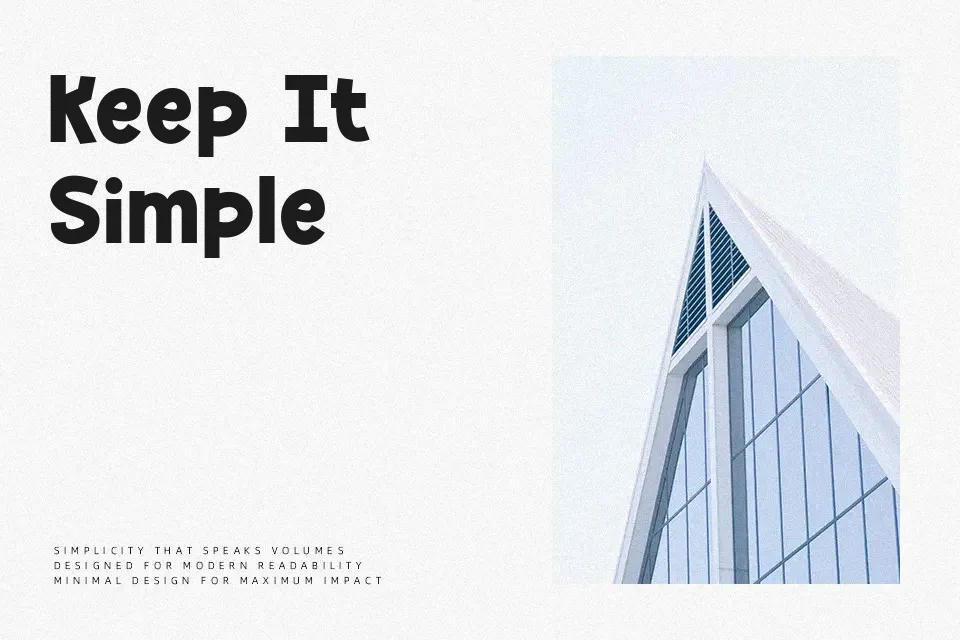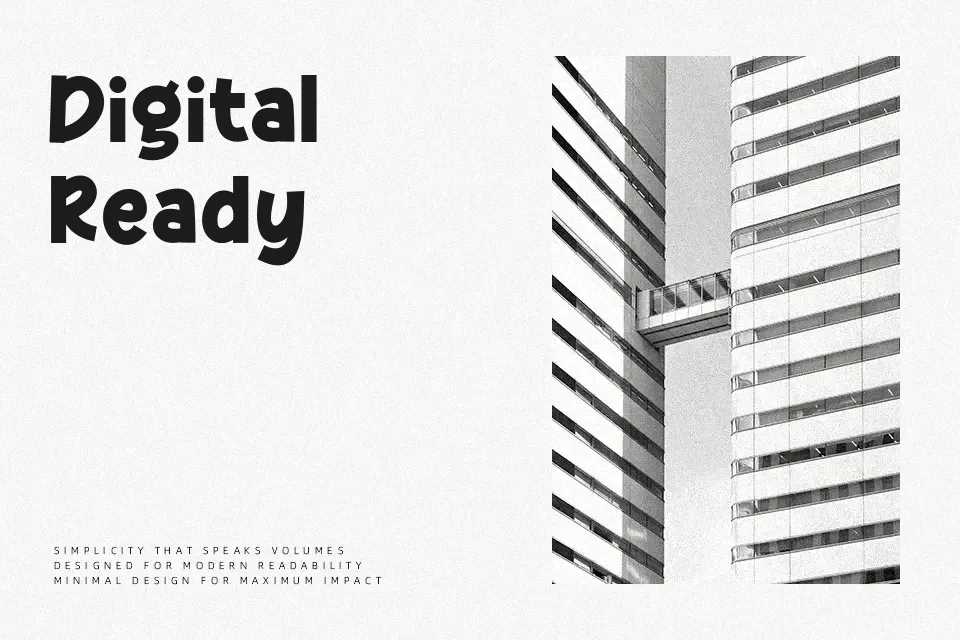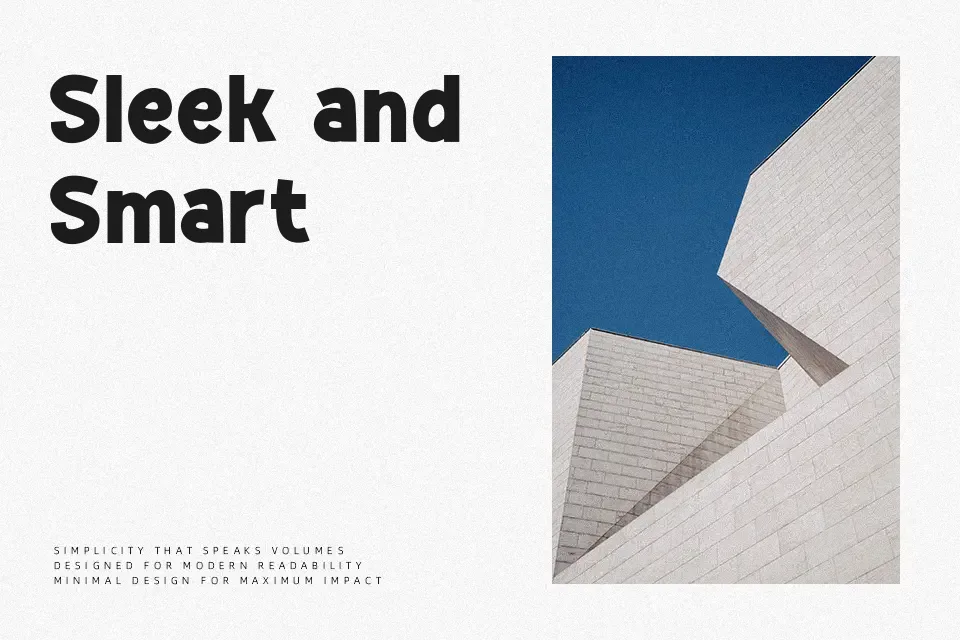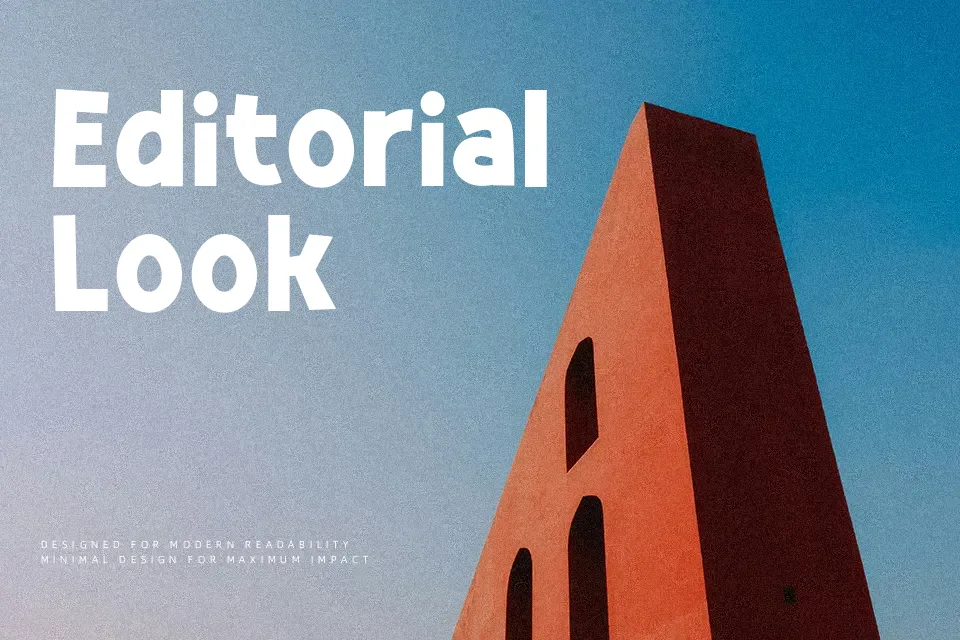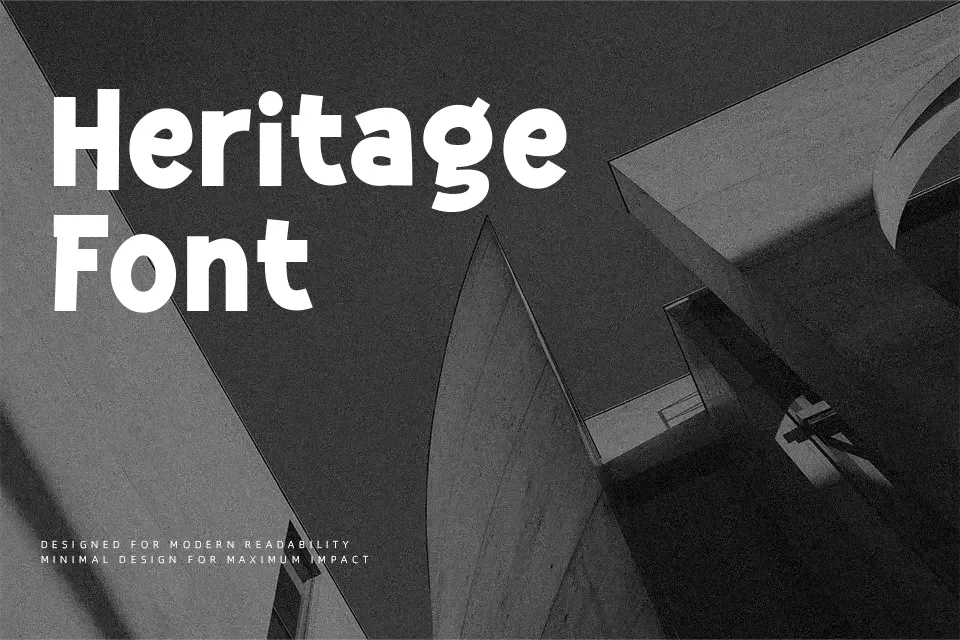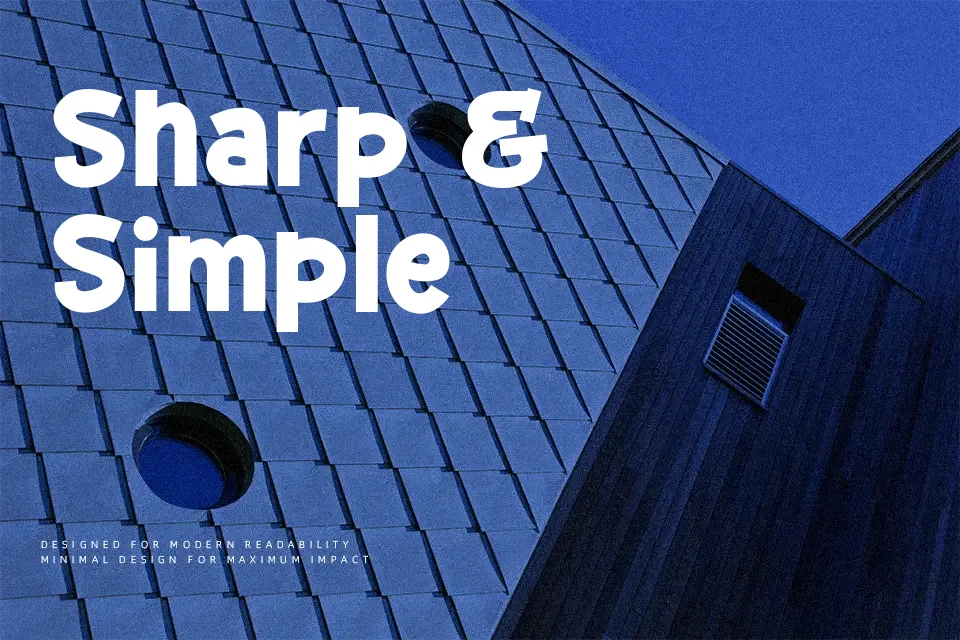
Thocant Font
Designed by Khurasan
Thocant Font delivers a minimalist sans-serif architecture built around unmodulated line weights, open apertures, and refined geometric curvature. Spacing between individual glyphs remains moderately snug, providing rhythmic cohesion when words appear at substantial scale. Because the stroke thickness stays uniform throughout uppercase and lowercase sets, titles achieve an immediate sense of technical clarity. The design excels across technology branding, packaging labels, dynamic video titles, and modern promotional banners. However, the compact spacing and lack of textural contrast reduce reading comfort across prolonged editorial paragraphs. At display sizes, the letterforms project a poised, orderly presence that anchors contemporary layouts effectively.
Best For: technology branding, packaging labels, modern poster titles, website hero headlines
Not Ideal For: long editorial paragraphs, dense book text, small mobile captions, technical spreadsheets
Perfect for branding, headline, and logo, with a clean and display style.